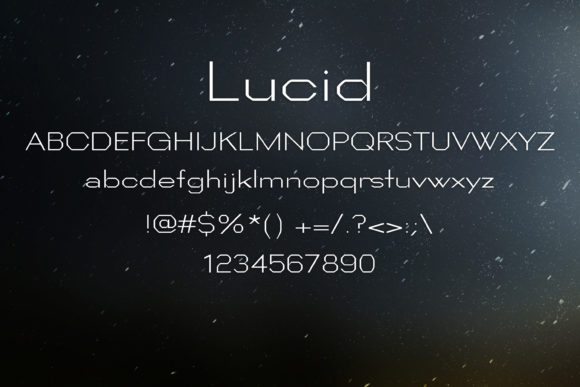
Introduction to Lucid Font
Have you ever stared at a blank page, feeling the creative juices flowing, but struggling to bring your vision to life? You’re not alone. We’ve all been there – staring at a design project, unsure of how to make it truly stand out. But what if you had the perfect tool to turn your creative idea into a reality?
Enter Lucid Font, a stunning blocky and thin display font in a sans serif style. This high-quality design resource is designed to elevate your creative project and give it a unique touch. With its transparent background, Lucid Font is perfect for designers looking to add a modern twist to their work.
Key Features of Lucid Font
- High-quality, vector-based design resource with a transparent background, ideal for creative projects.
- Designed with a clean and modern aesthetic, perfect for minimalist and sleek designs.
- Includes a wide range of characters, including uppercase and lowercase letters, numbers, and punctuation marks.
Honest Review: Lucid Font
I recently came across the Lucid Font, a high-quality design resource that has caught my attention. As a designer, I’m always on the lookout for versatile fonts that can elevate my creative projects.
- High-quality design: The font is well-designed and has a transparent background, making it suitable for various creative projects.
- Customizable: The Lucid Font can be easily customized to suit your design needs, making it a valuable resource for designers.
- Limited font styles: The Lucid Font has a limited number of font styles, which may not be suitable for designers who require a wide range of font options.
Overall, the Lucid Font is a great addition to any designer’s toolkit. While it has some limitations, its high-quality design and ease of use make it a valuable resource for creative projects. I would recommend the Lucid Font to designers who are looking for a versatile and easy-to-use font.
Tips for Getting the Most Out of Lucid Font
To get the most out of Lucid Font, use it for headings and titles in your creative project. You can also experiment with different font sizes and styles to create a visually appealing design.
Lucid Font is perfect for use in logos, branding materials, and other creative projects where a clean and simple font is needed. It’s also great for use in presentations and documents where a professional look is required.